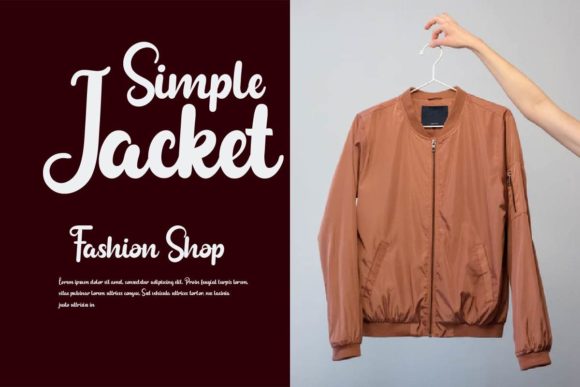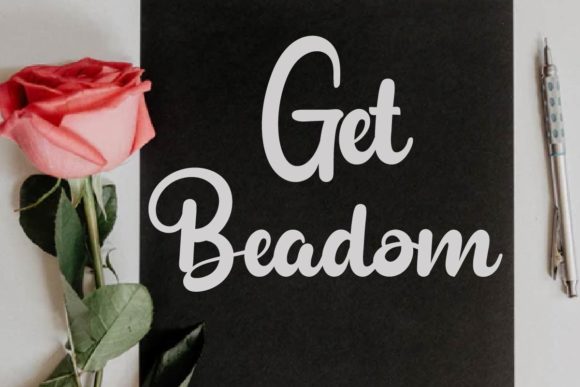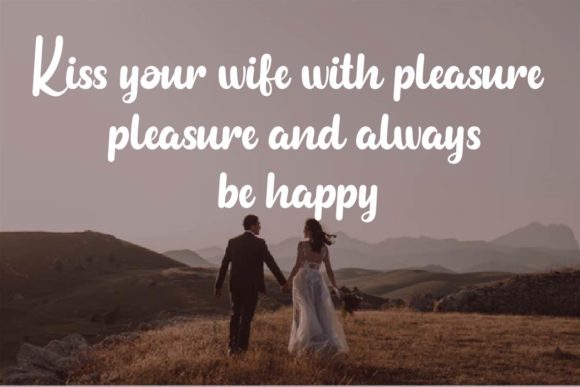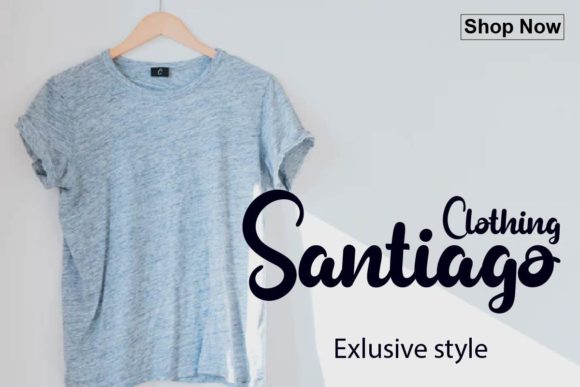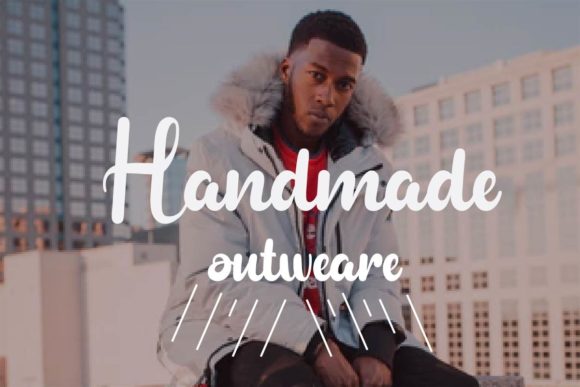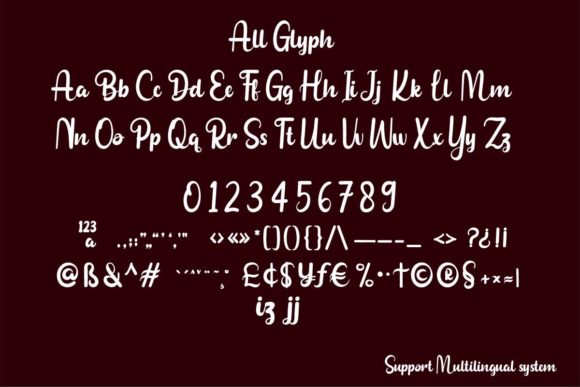
The Boathick Font: A Chic and Friendly Handwritten Delight
I’ll never forget the design struggle I faced while working on a branding project for a beachside cafe. I had the perfect color palette, the ideal imagery, but I just couldn’t find the right font to tie everything together. That’s when I stumbled upon Boathick, a chic and friendly handwritten font that instantly elevated my design. If you’re a designer, crafter, or creative hobbyist looking for a versatile font to make your projects stand out, you’re in the right place!
An Honest Review of Boathick
What I Love About Boathick ✨
• ✅ Its friendly and approachable vibe makes it perfect for a wide range of projects, from branding and packaging to invitations and social media graphics.
• ✅ The font’s unique character has just the right amount of personality to make your designs memorable.
• ✅ Boathick is highly legible, even at smaller font sizes, making it a great choice for body text or captions.
• ✅ The font comes with a range of OpenType features, including stylistic alternates and glyphs, giving you plenty of creative options.
While Boathick is an excellent font, it’s not without its limitations. For example:
• ⚠️ Some of the more intricate glyphs can get a bit lost at very small font sizes, so it’s best to use them in larger text or headings.
• ⚠️ As with any handwritten font, it may not be the best choice for very formal or corporate designs.
The Story Behind Boathick
Boathick was designed by a talented font designer who wanted to create a font that captured the carefree spirit of a summer day by the beach. Inspired by the relaxed, handwritten signs found in coastal towns, Boathick is the perfect blend of friendliness and sophistication.
Q: What type of projects is Boathick best suited for?
A: Boathick is a versatile font that can be used for a wide range of projects, including branding, packaging, invitations, social media graphics, and more.
Q: Does Boathick come with any OpenType features?
A: Yes, Boathick comes with a range of OpenType features, including stylistic alternates, glyphs, and ligatures.